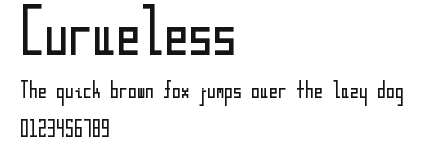
• Font Name: Curveless
• Designer: Peter Philip Crisci
• Description: This font has no curves and no angle other than 90 degrees to provide a futuristic look and to make text scalable as a raster graphic without pixelation. All the letters and numbers take up the same area. Most dimensions of the characters are based on a multiple of two, and generally each one has the same proportions and weight in all parts, with some minor variation for the punctuation.
Curveless.ttf is a modern, elegant sans-serif font designed for ultimate readability and visual harmony. Perfect for branding, headlines, web design, and print materials.